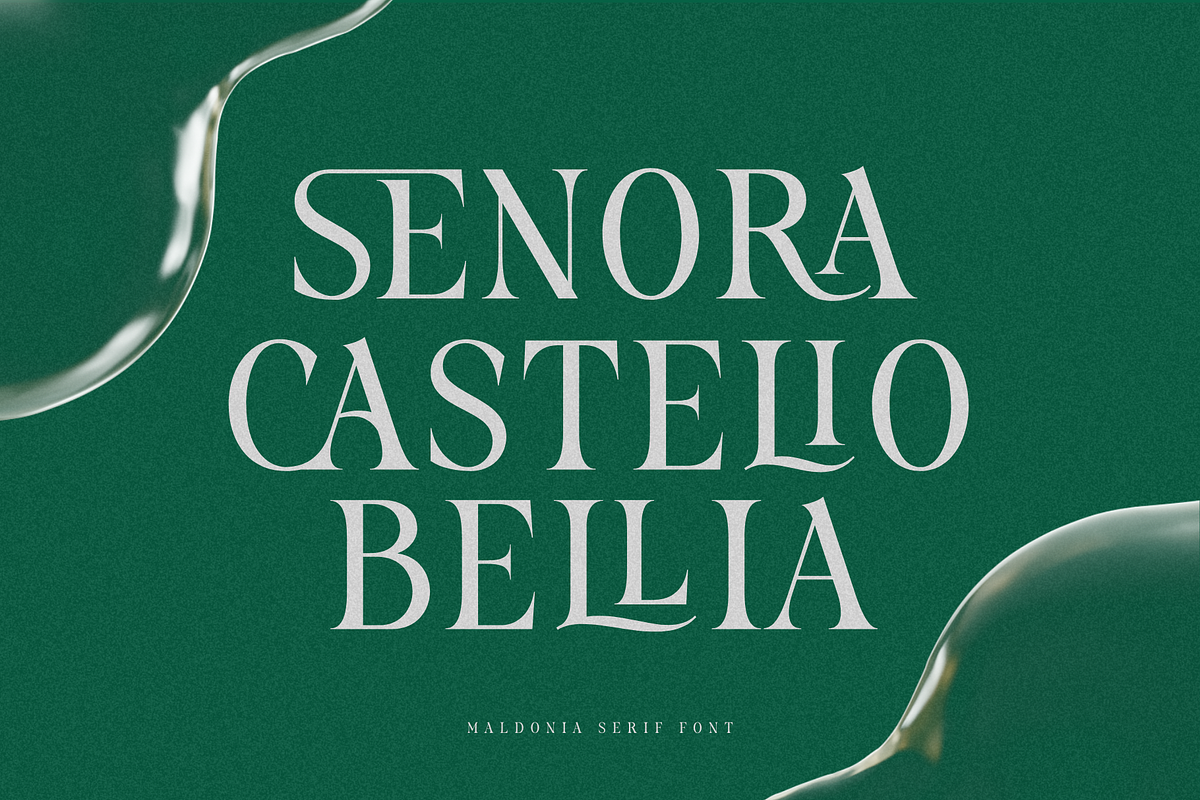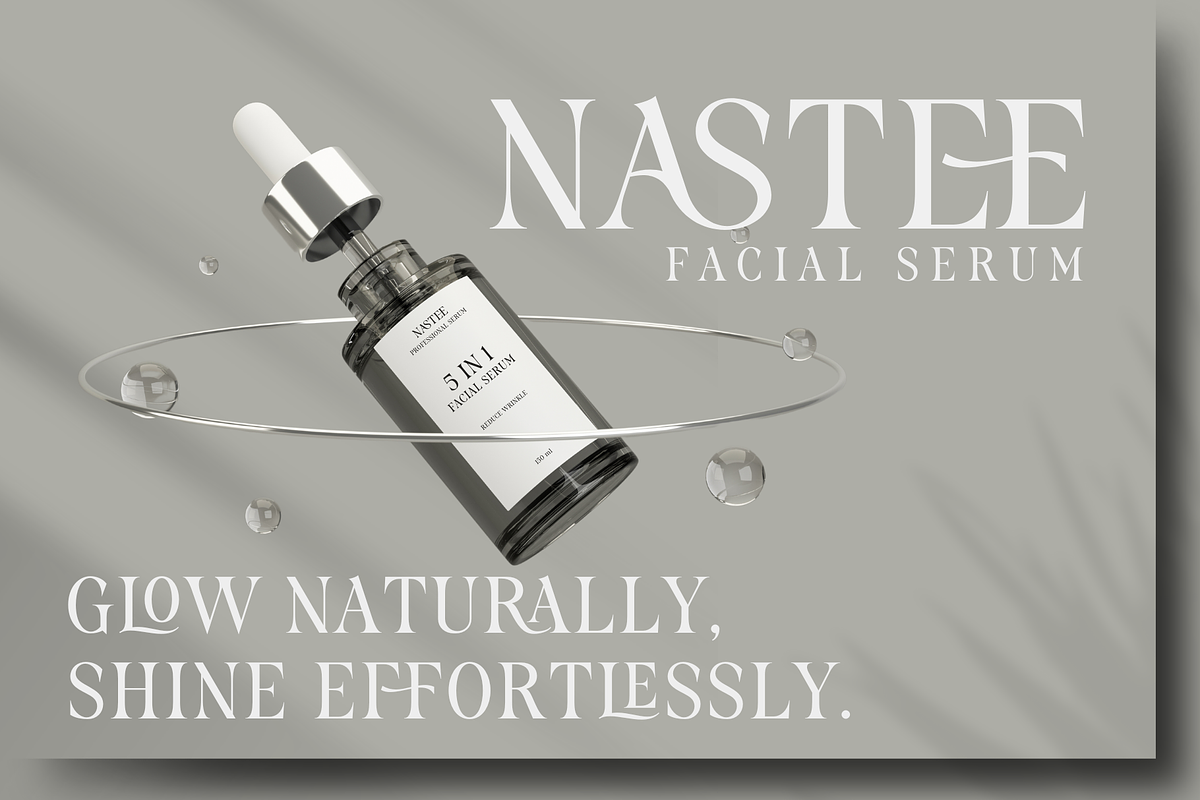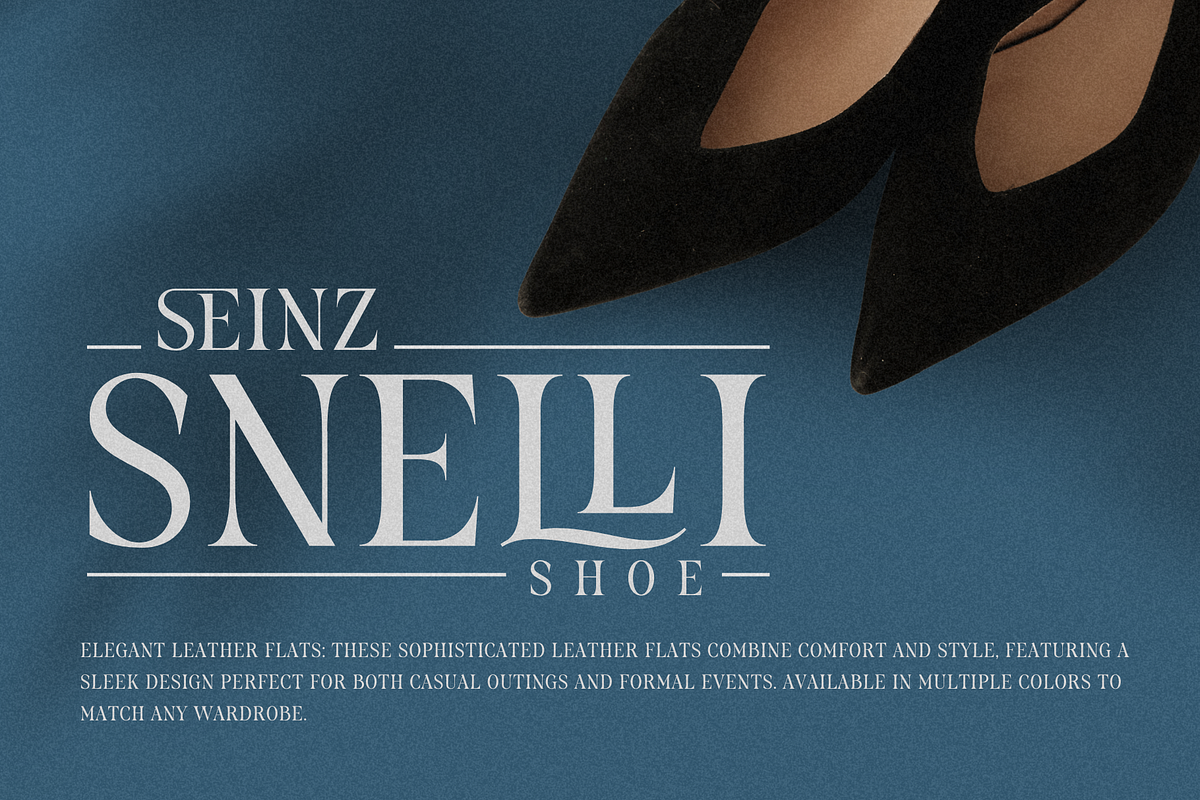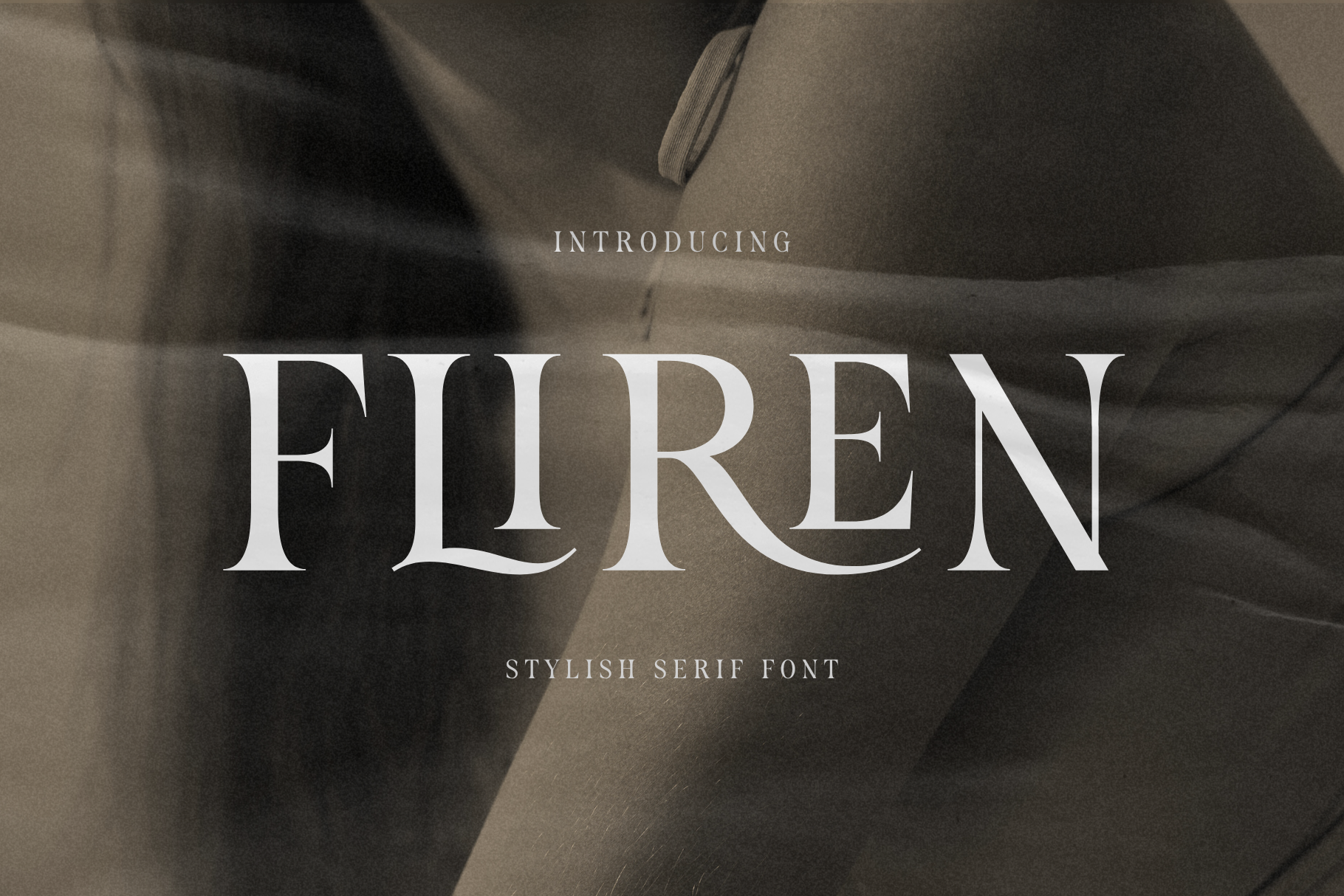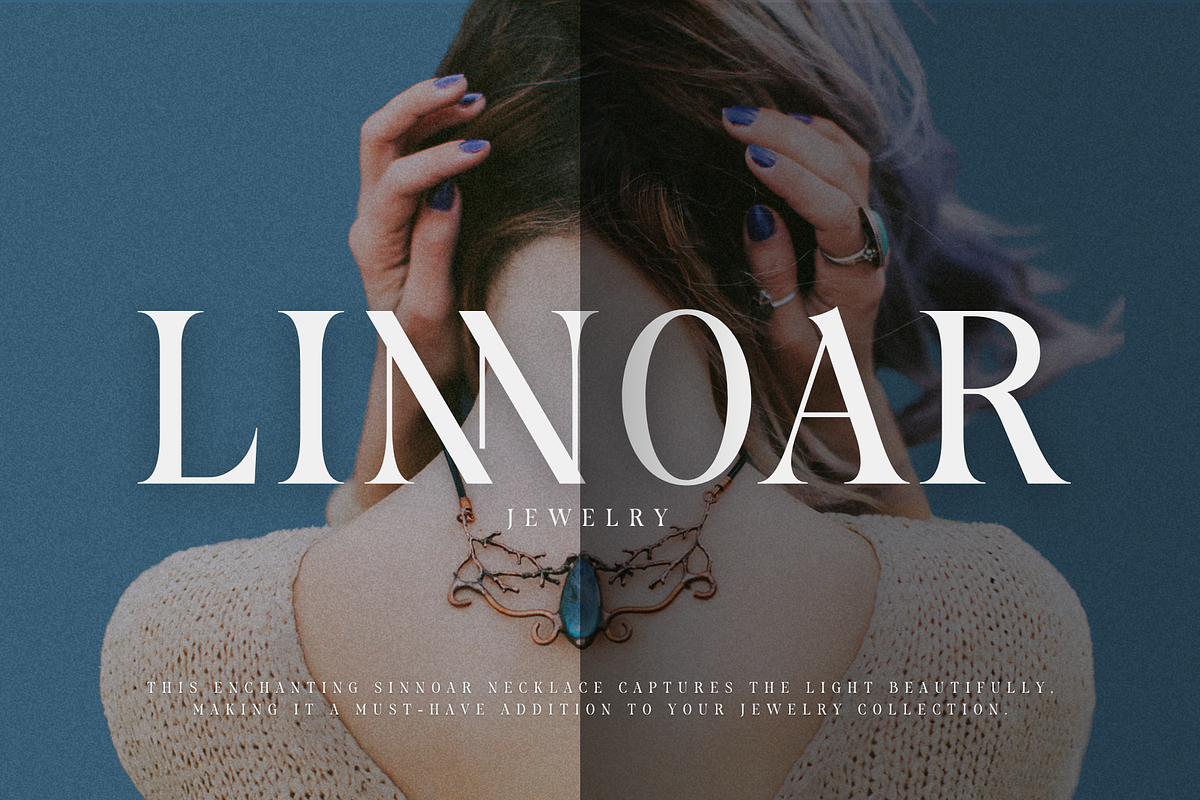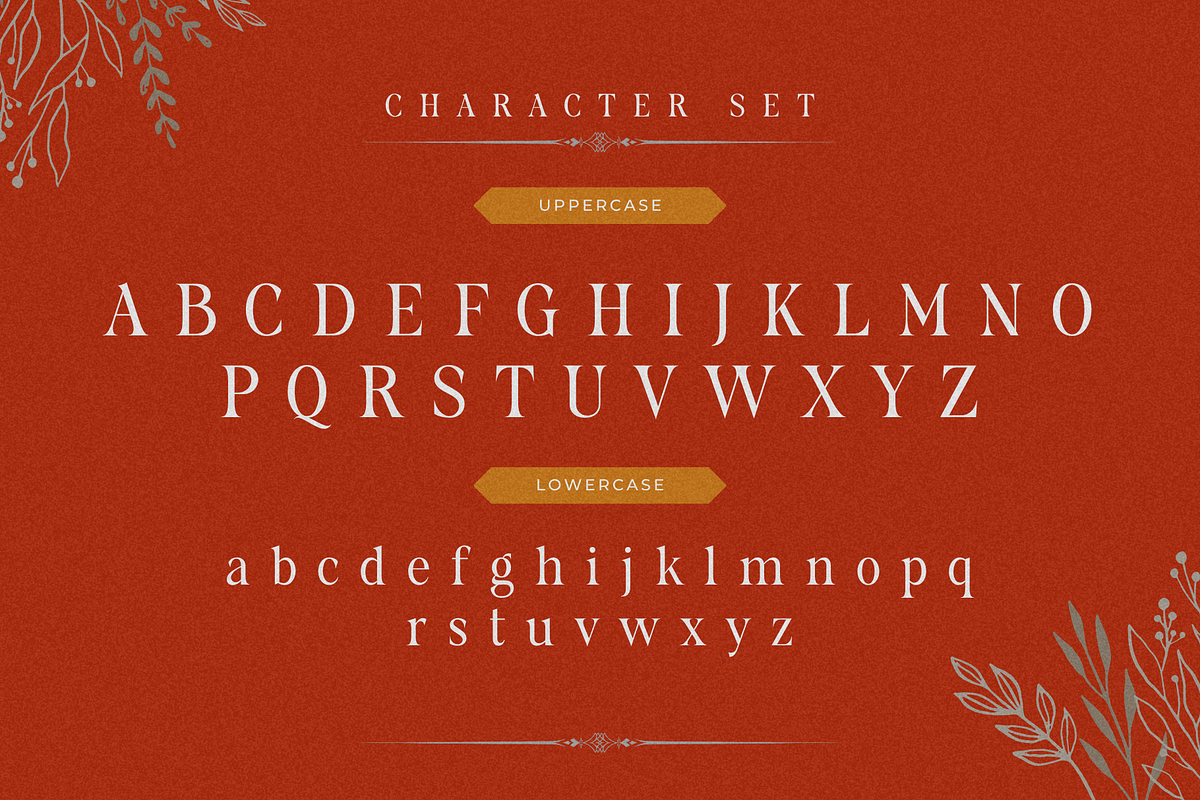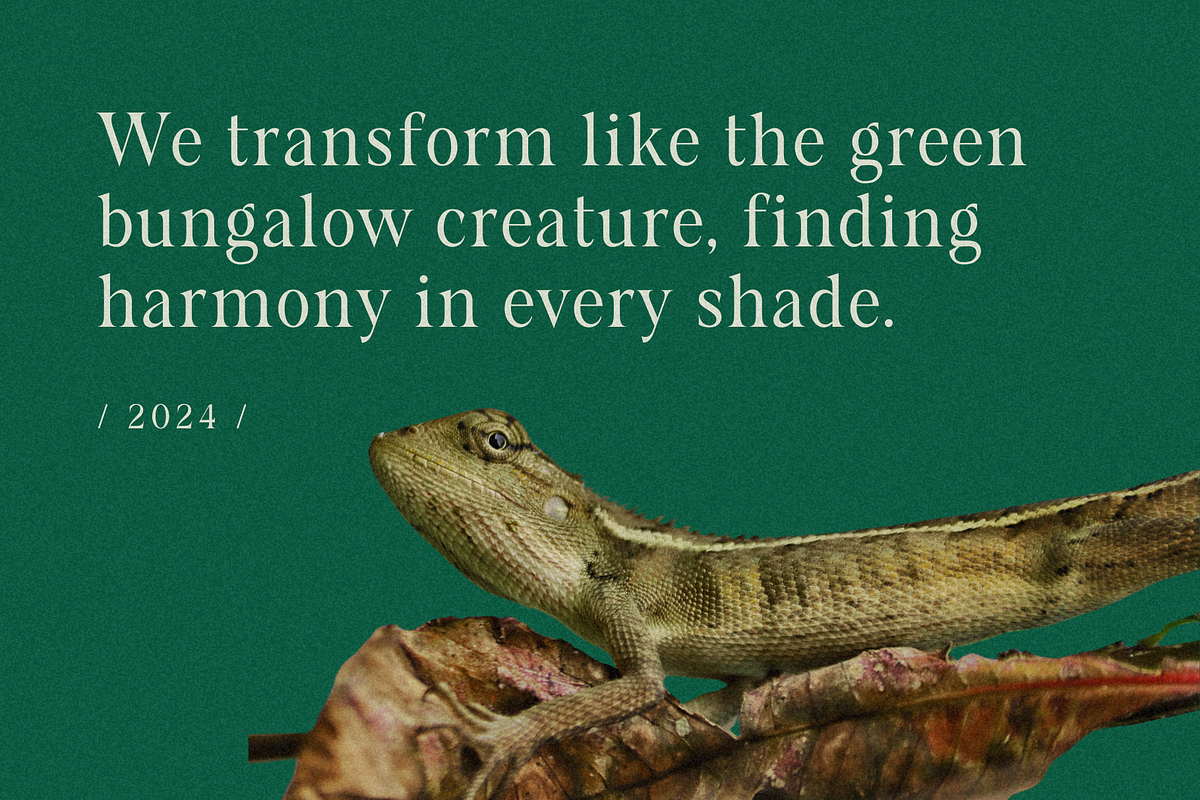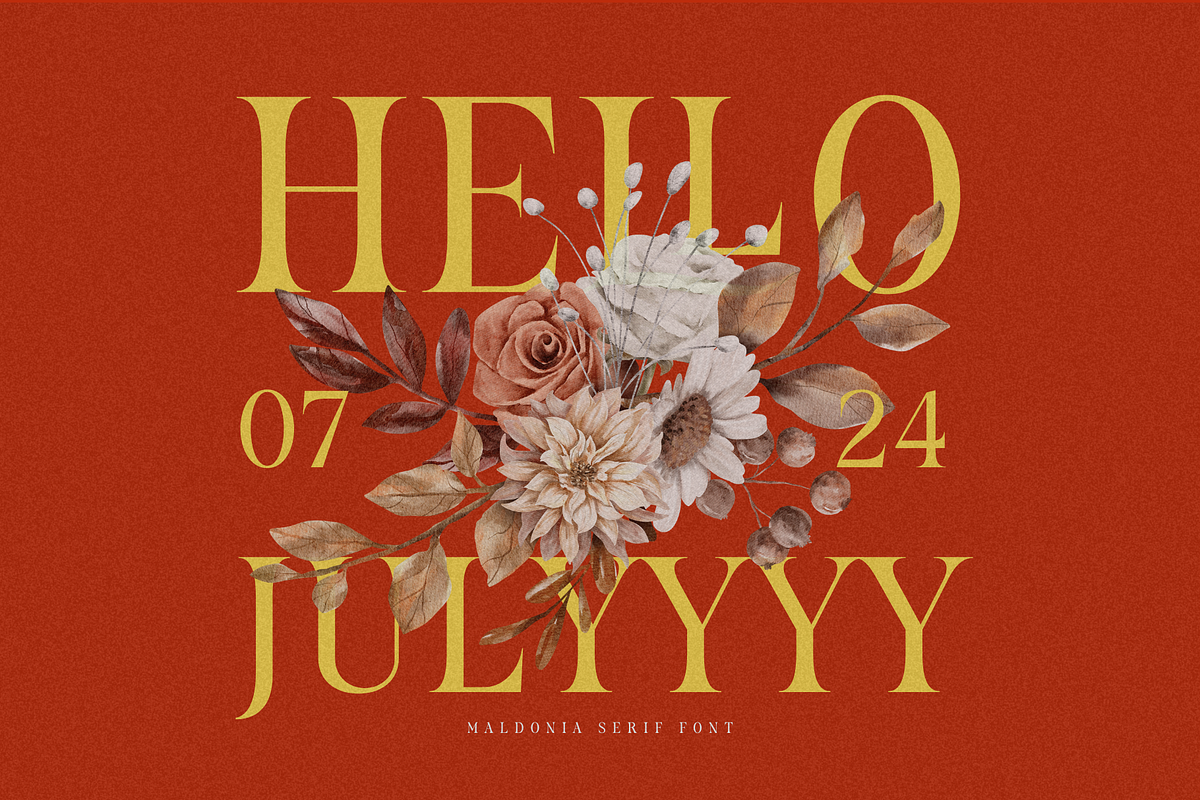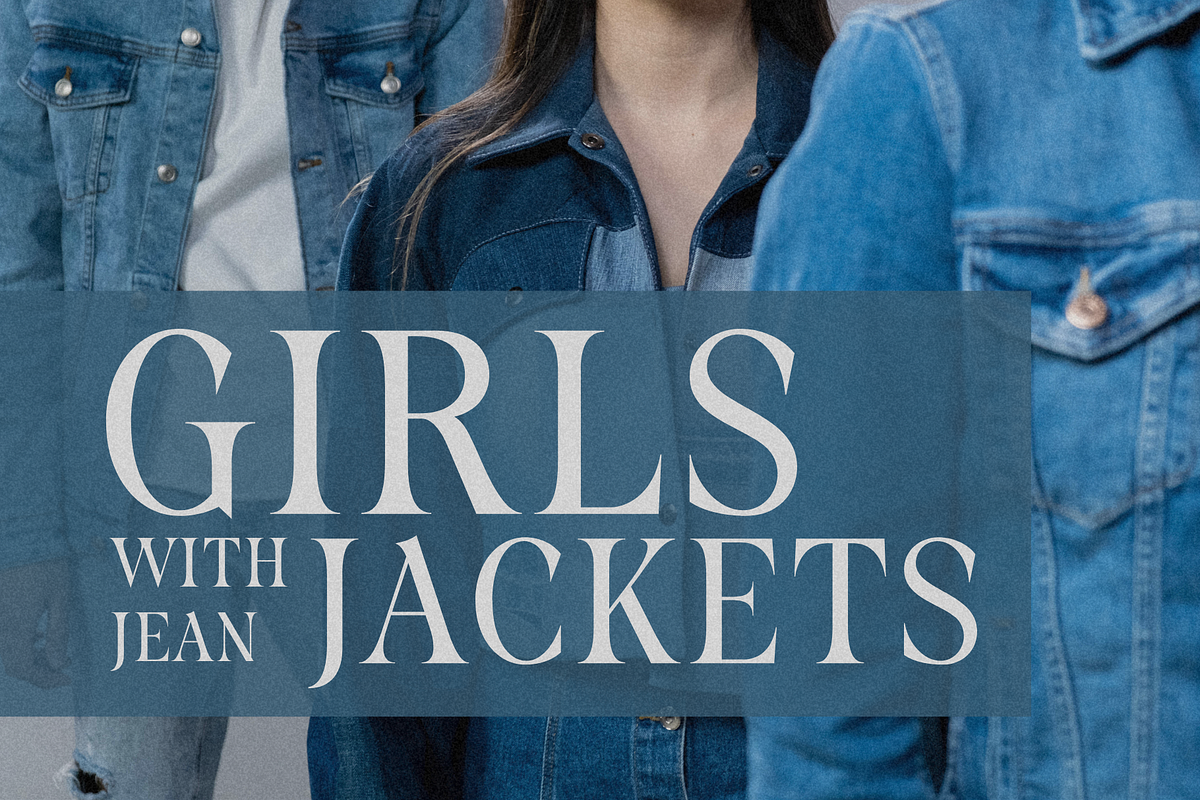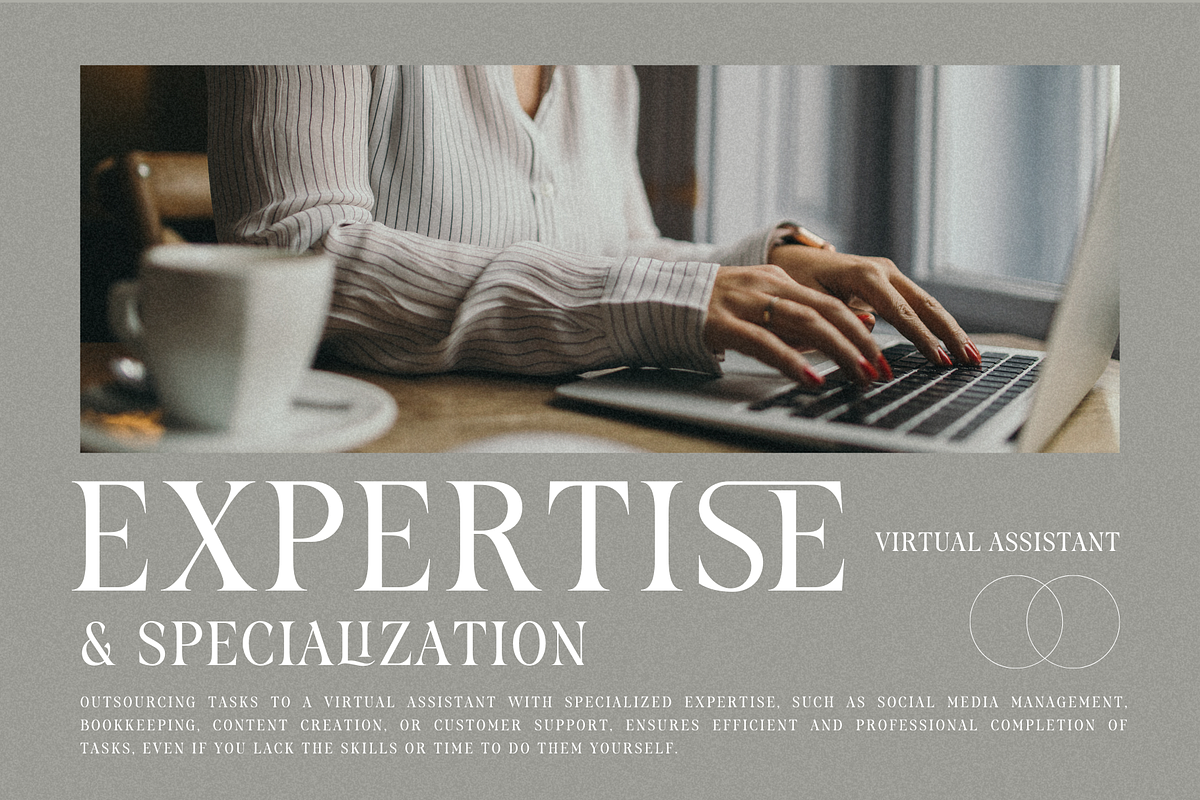
Fliren - Stylish Serif Font
Introducing "Fliren," a stylish serif font that blends classic elegance with modern sophistication. With its refined letterforms and graceful curves, "Fliren" is perfect for projects that require a touch of class and beauty, such as high-end branding, editorial design, wedding invitations, and luxury packaging. This font exudes timeless charm and versatility, ensuring your designs stand out with an air of stylish refinement. Let "Fliren" elevate your work with its exquisite and polished appearance.